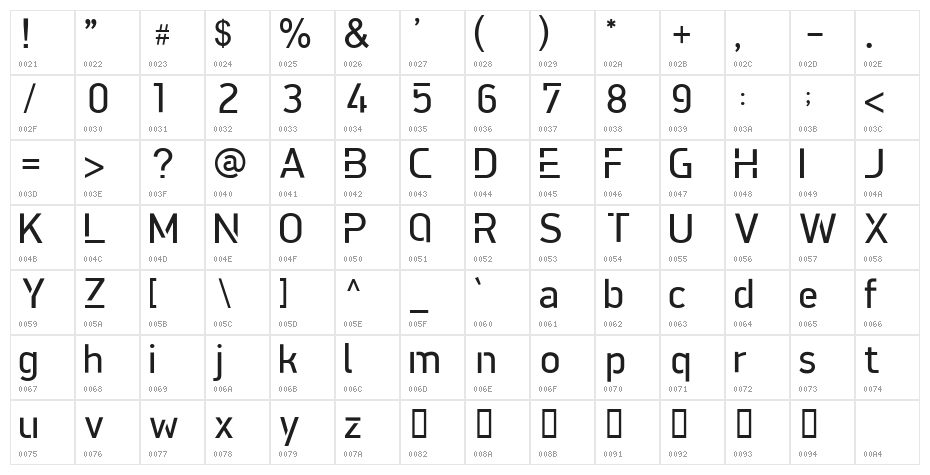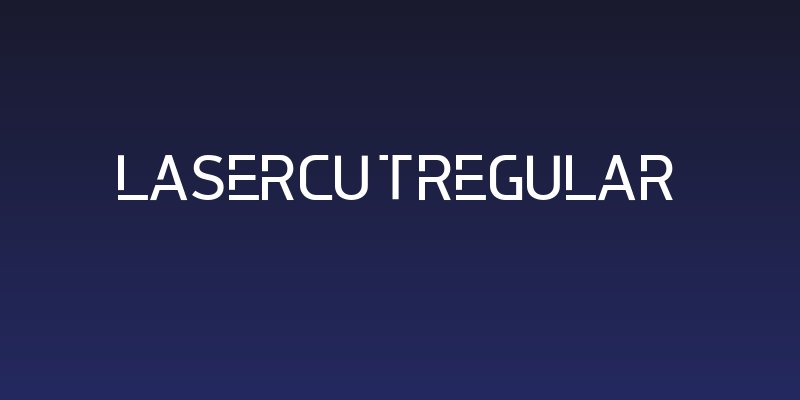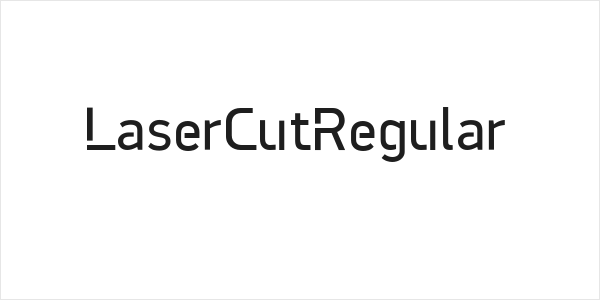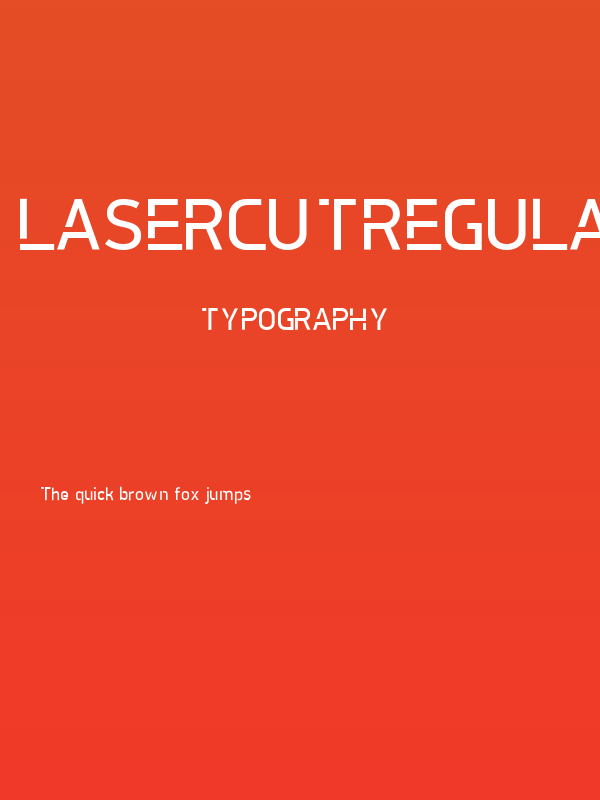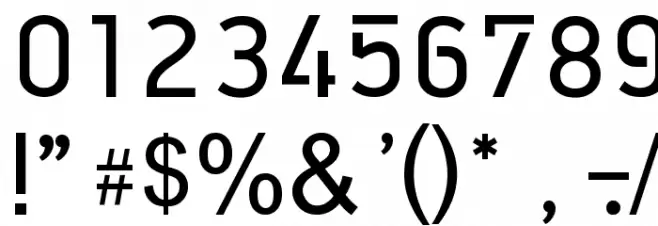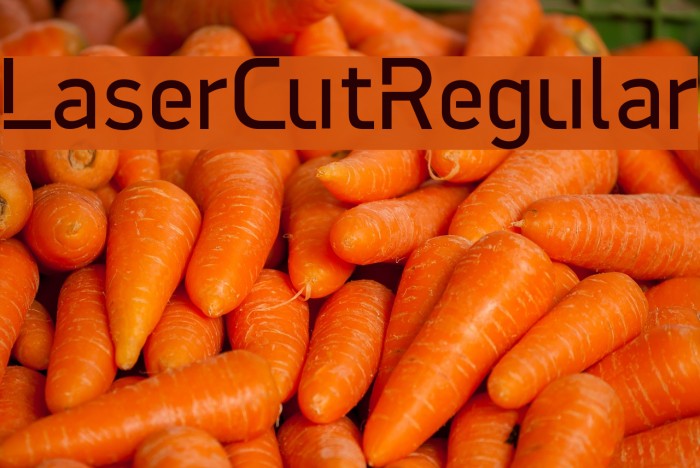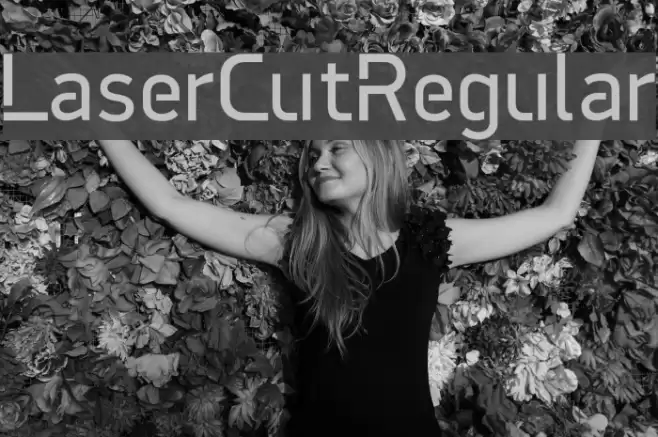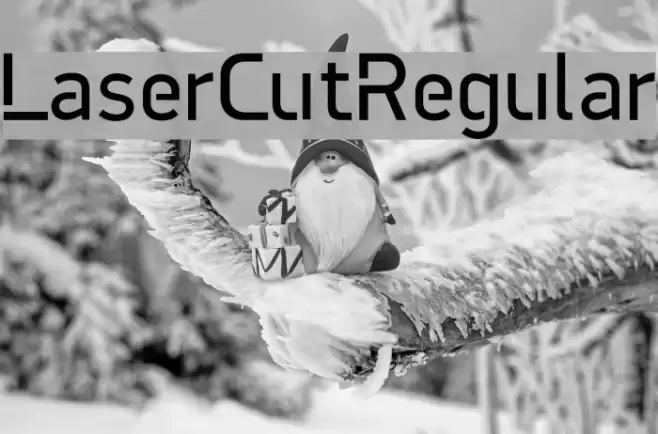
LaserCutRegular Font
LaserCutRegular Description
This font features a modern and geometric design with clean, sharp lines and a futuristic aesthetic. The characters are constructed with a consistent stroke width, giving it a uniform appearance. The uppercase letters exhibit a unique style with some characters having unexpected cuts or gaps, adding an industrial and technical feel. The lowercase letters maintain the same geometric precision, ensuring readability while retaining the font's distinctive style. The numerals are clear and straightforward, matching the overall design ethos. Special characters are designed with the same attention to detail, making them fit seamlessly with the rest of the font.
| Use Case | Headlines, Logos, Digital interfaces |
| Proposed Projects | Ideal for technology branding, modern advertising, product packaging, and digital interfaces. |